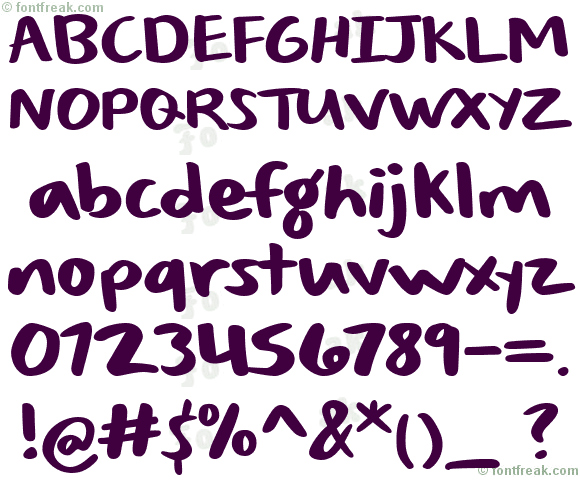
Sizable Quantity
Sizable Quantity is a unique display font designed by Misti Hammers that captures attention with its playful, bold aesthetic. This font falls into the category of decorative typefaces, characterized by its expressive letterforms that convey a sense of creativity and whimsy. The strokes are thick and rounded, giving the font a friendly appearance, while the overall structure allows for excellent readability, making it ideal for various applications.
Visually, Sizable Quantity exhibits a uniform stroke weight, creating a cohesive look throughout its characters. The design features subtle curves and playful loops that add a touch of charm without sacrificing clarity. The spacing between letters is generous, allowing for easy legibility, which is essential in any design project. Its decorative elements are minimal yet effective, making it versatile enough to fit a range of themes.
This font is particularly well-suited for creative projects such as wedding invitations, where a lighthearted touch is desired. It can also shine in restaurant menus, adding a fun flair to the dining experience. Additionally, Sizable Quantity works beautifully on promotional materials for events or businesses that want to convey a sense of approachability, such as local markets, craft fairs, or children's products. The target audience for this font includes graphic designers, small business owners, and content creators looking to enhance their visual communication.
What sets Sizable Quantity apart is its ability to blend boldness with approachability, making it an excellent choice for designs that require a memorable impact. With the Sizable Quantity font free download available, users can easily incorporate this distinctive typeface into their projects, elevating their designs with a touch of personality and charm.